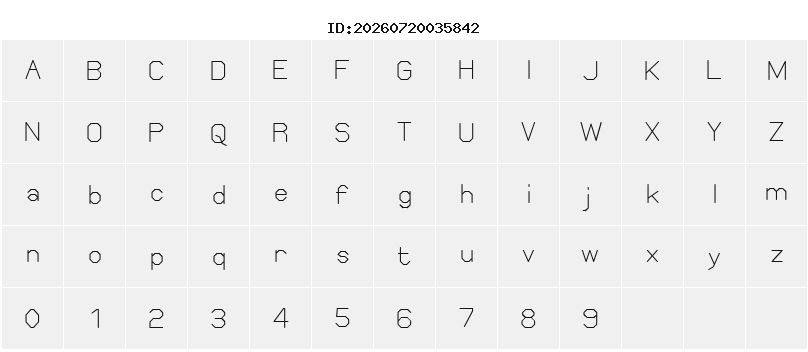
Elgethy Square Preview
• Font Name: Elgethy Square
• Manufacturer: Graham Meade
About Elgethy Square.ttf
Elgethy Square.ttf is a modern, elegant sans-serif font designed for ultimate readability and visual harmony. Perfect for branding, headlines, web design, and print materials.